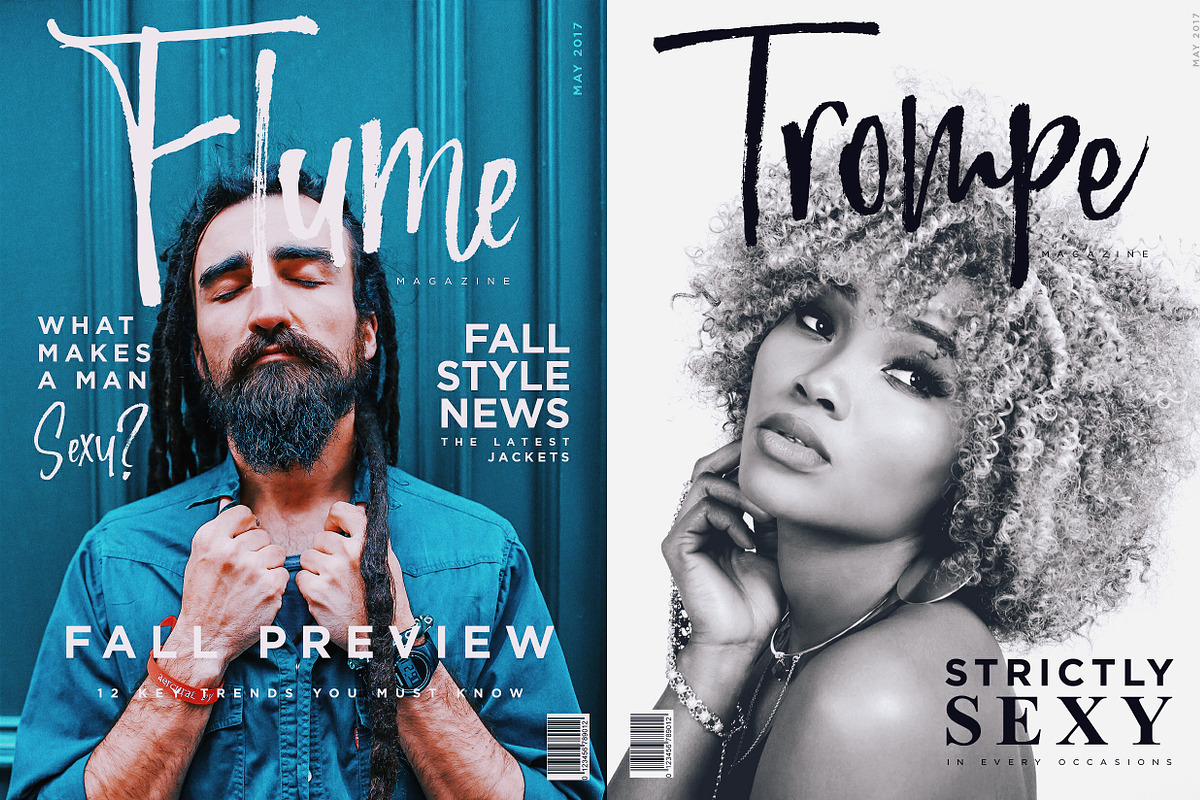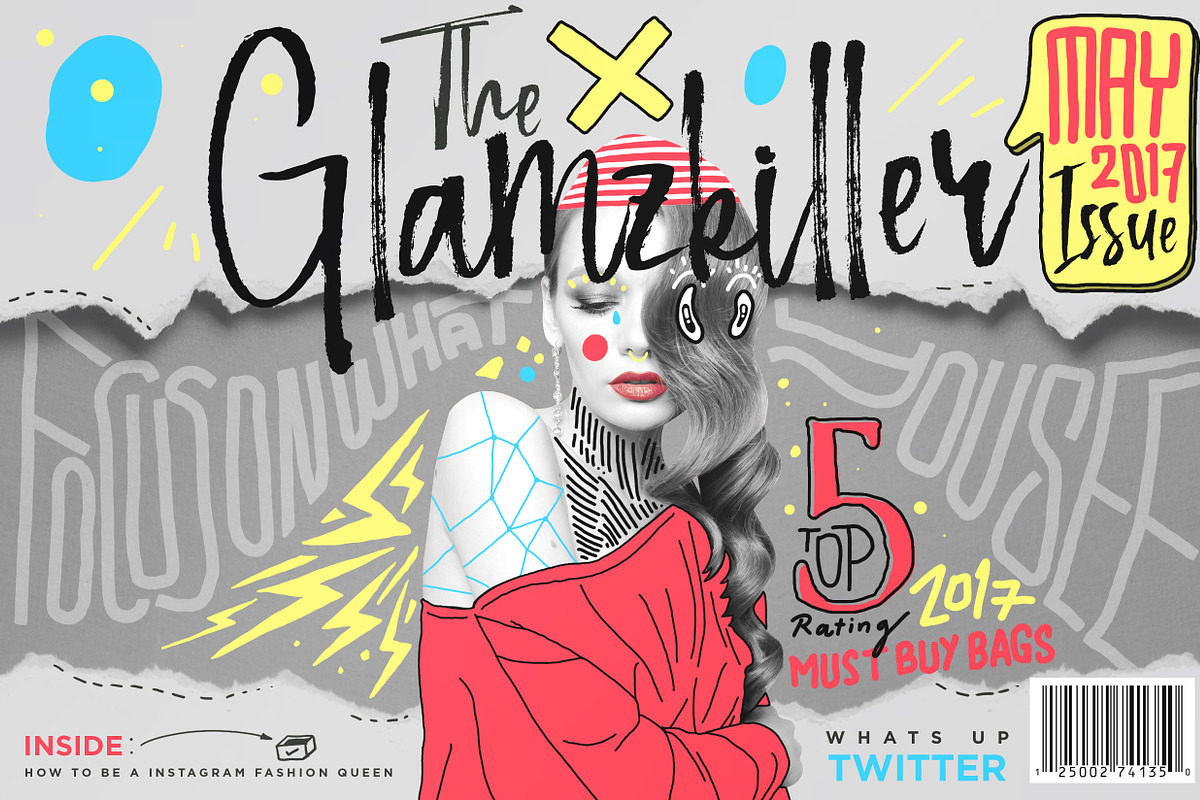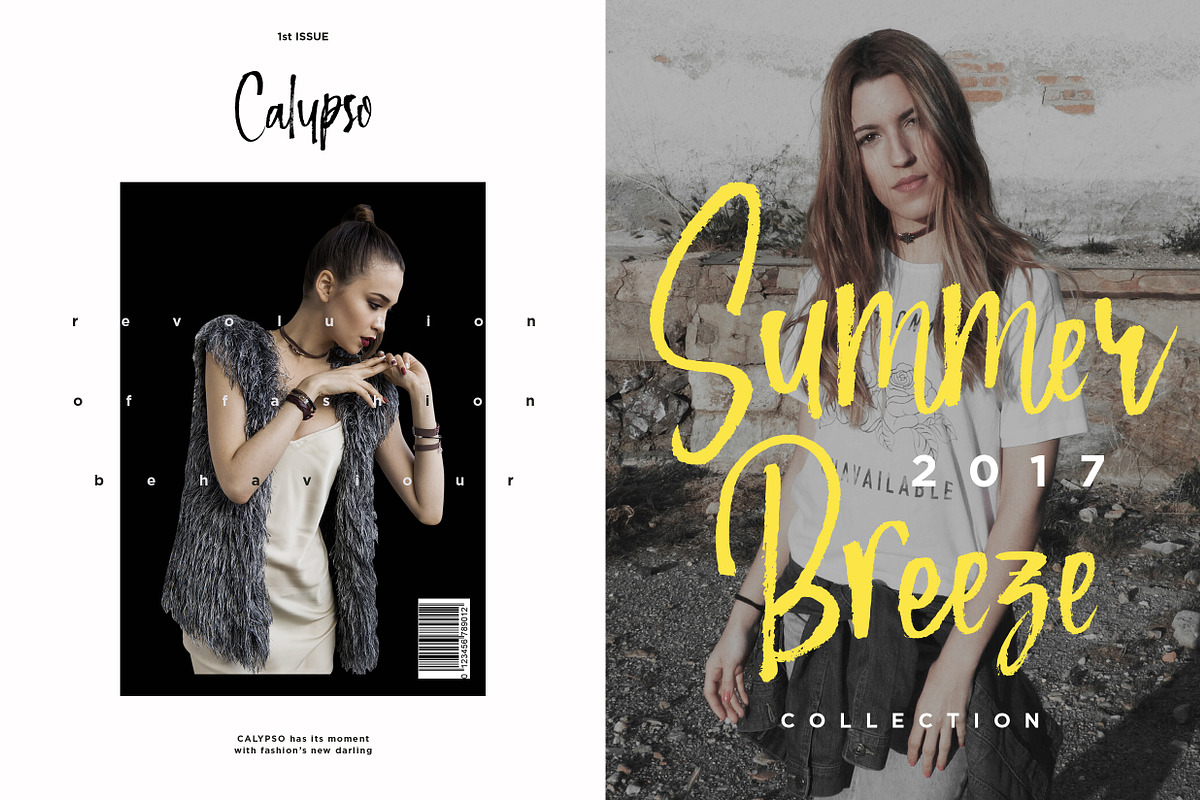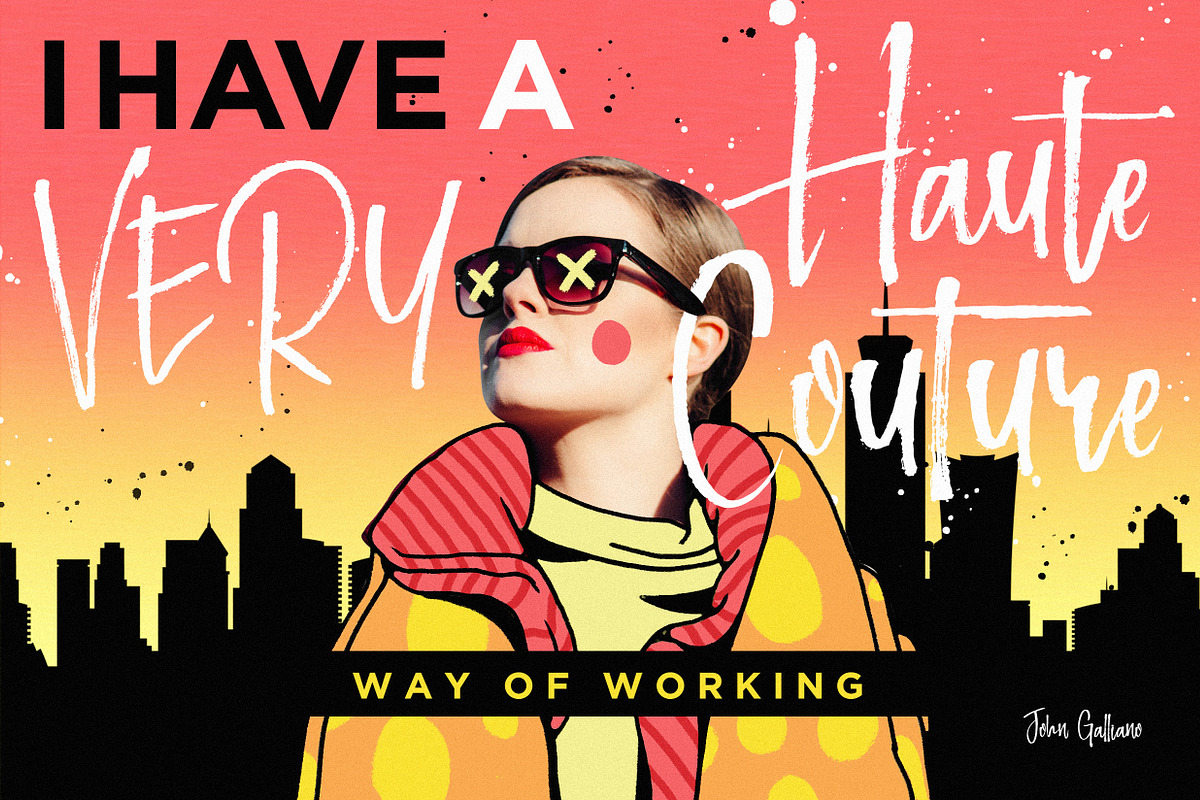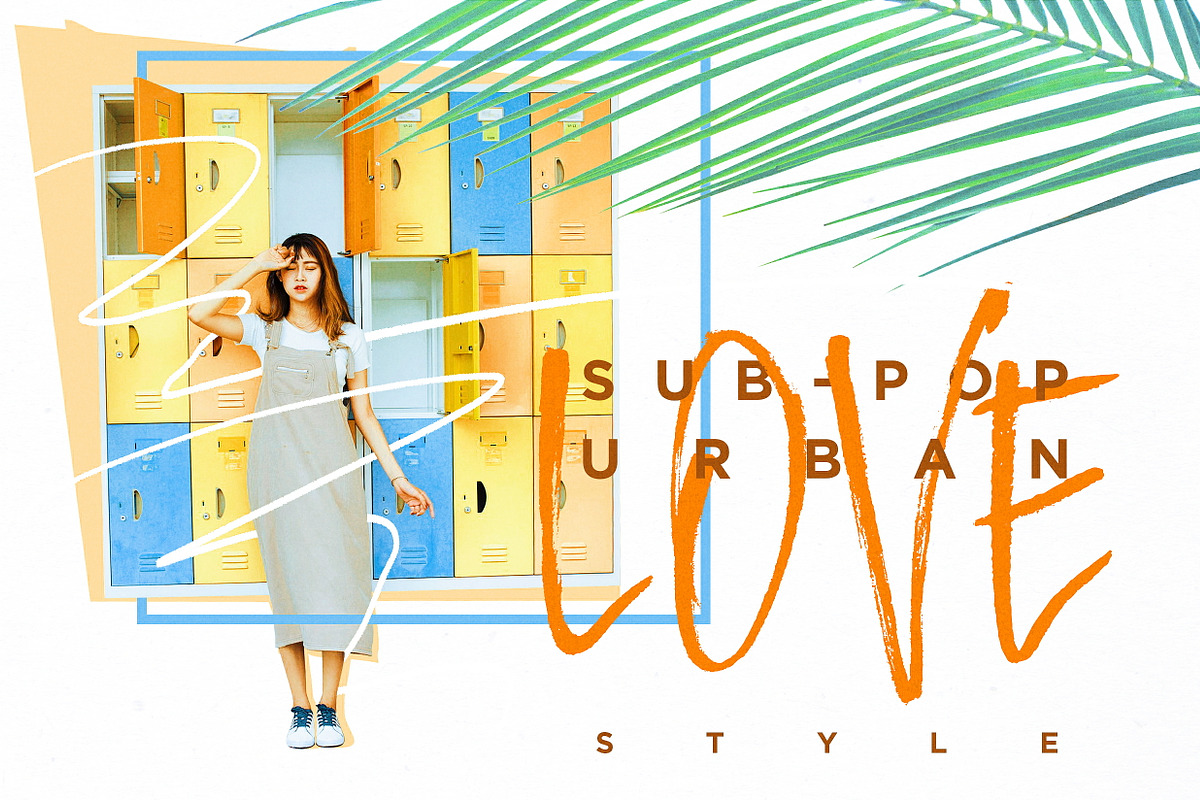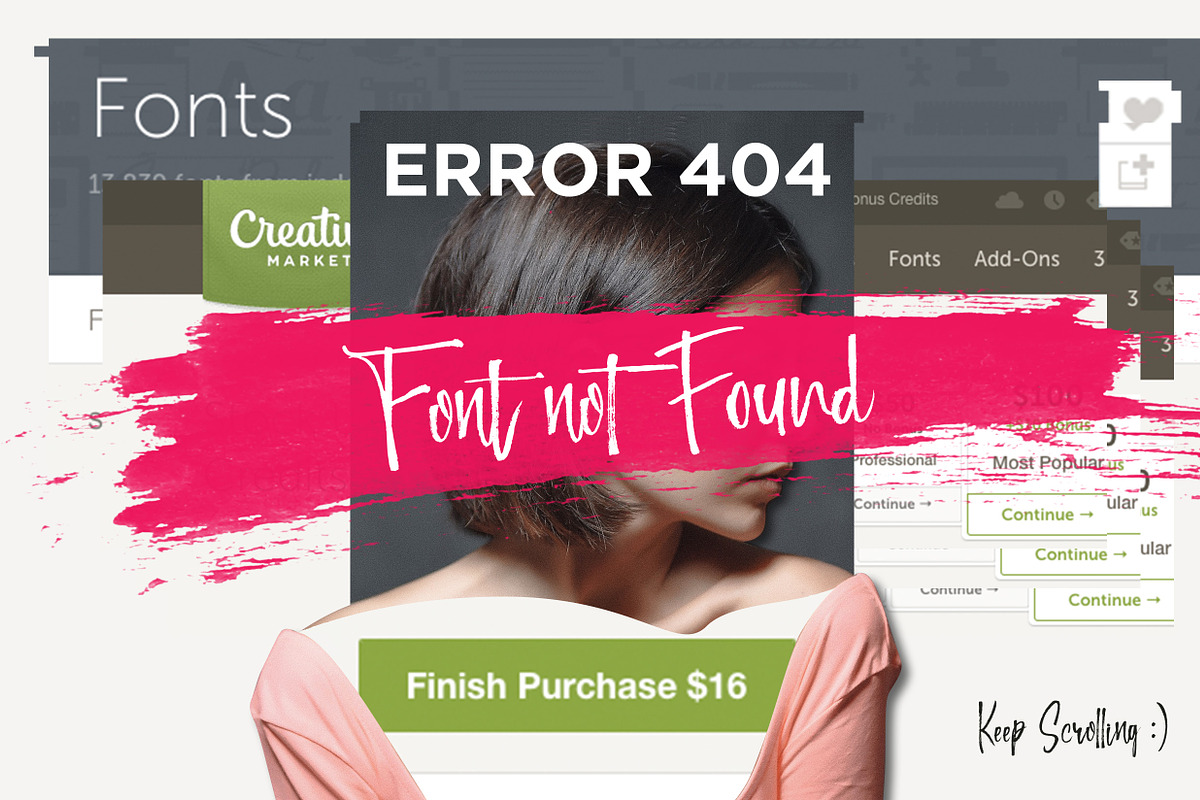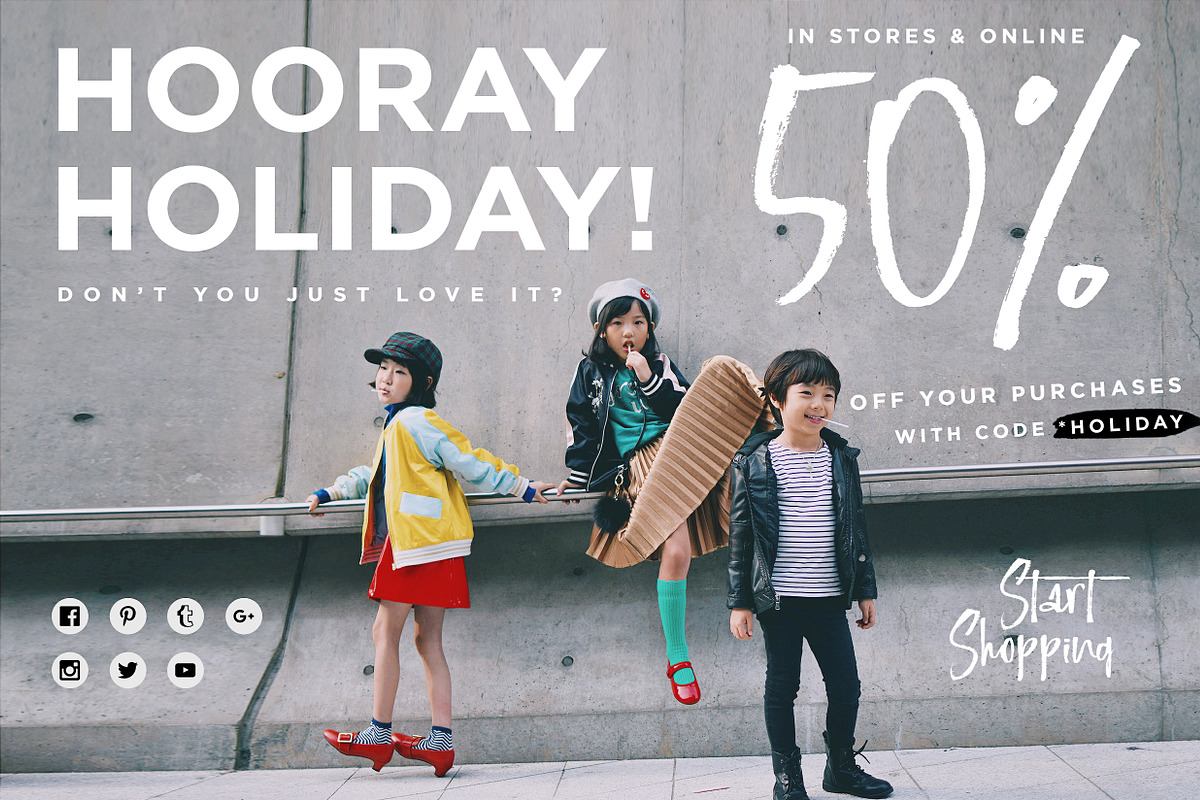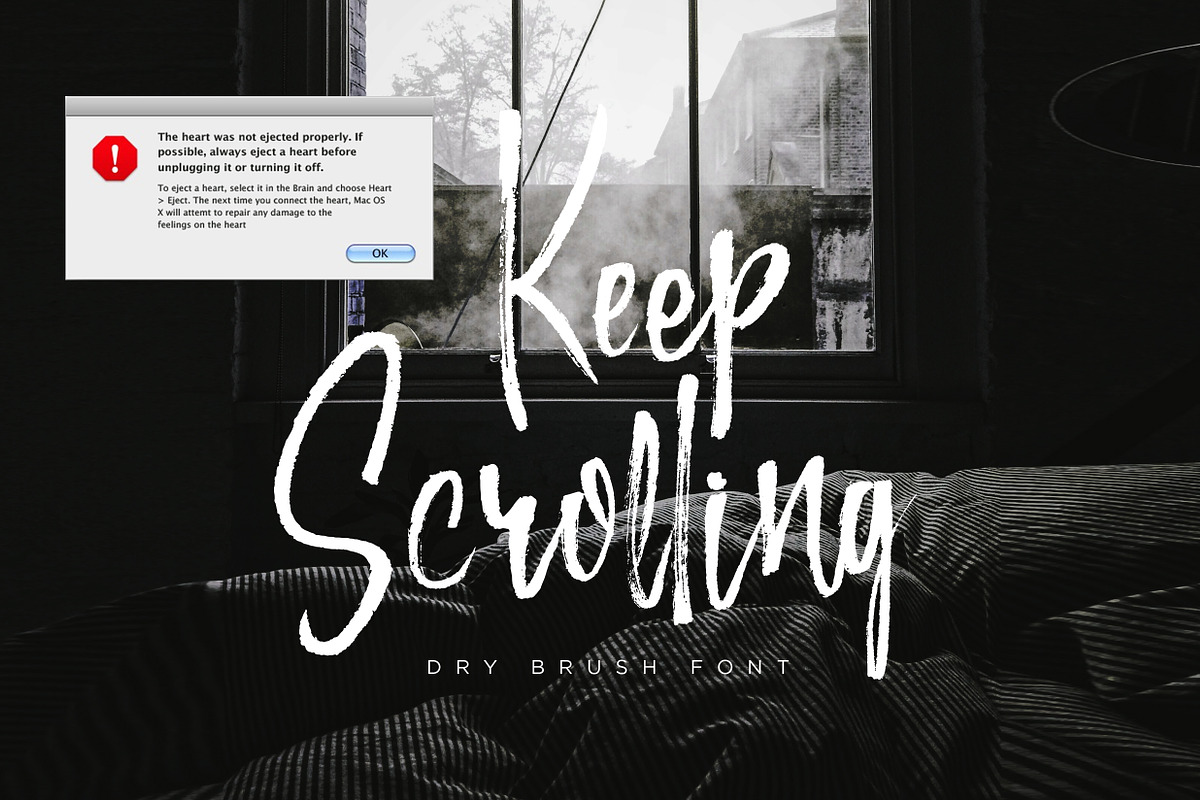
Keep Scrolling handwritten font
Keep Scrolling handwritten font by Ian Irwanwismoyo is a font selected for branding, posters, packaging, typography.
- I always love to treat myfonts like they're alive, they have an attitude, heart to heart engagement, and the end of the goal is i always wan
Why Keep Scrolling handwritten font is worth a look
Keep Scrolling handwritten font by Ian Irwanwismoyo fits naturally into Branding, posters, packaging, typography.